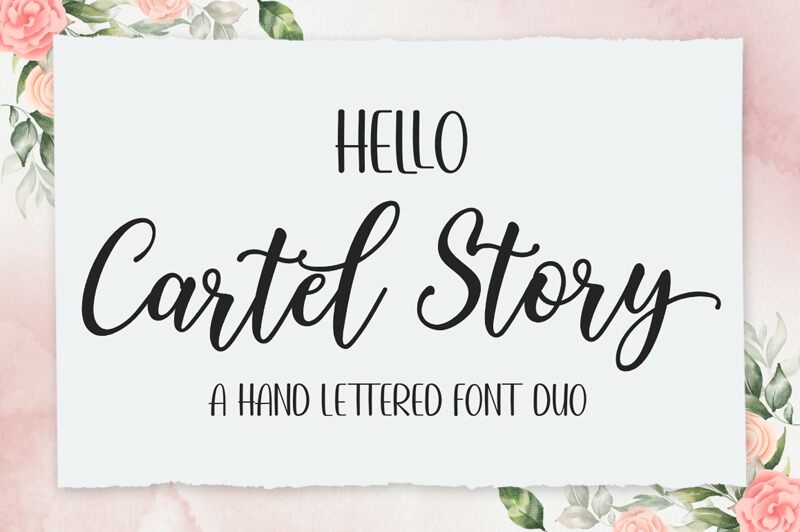
Hello Cartel Story Regular
Hello Cartel Story is an elegant calligraphy font designed by Muammar Kadafi. Its distinctive light weight and narrow width makes it perfect for creating stunning logos, posters, greeting cards and invitations. Add a touch of sophistication to any project with Hello Cartel Story!